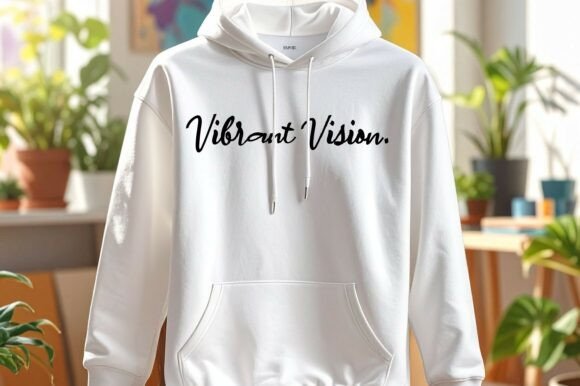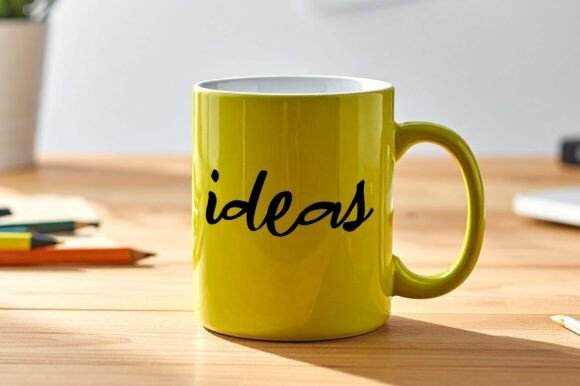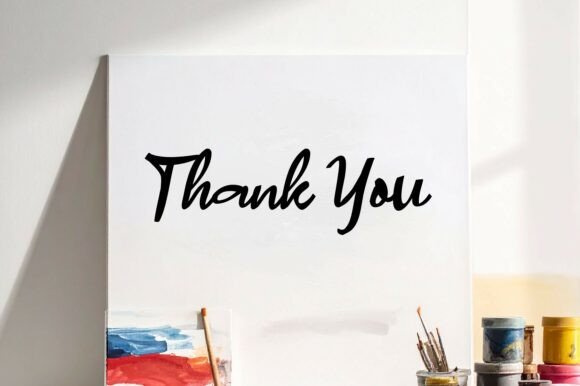
The Birth of a Bold New Voice
As designers, we’ve all had those moments of pure creative bliss – when the ideas flow, and the world feels full of endless possibilities. It’s in those moments that we’re reminded of the power of typography to evoke emotions and bring our vision to life. And that’s exactly what the Artinya Font is all about – capturing the essence of creativity and self-expression in a beautiful, modern script font.
With its bold, free-flowing letterforms and lively brushstroke quality, the Artinya Font is the perfect tool for designers who want to add a touch of confidence and artistic personality to their projects. From branding and apparel to creative studios and personal blogs, this font is an invaluable asset for anyone looking to make a strong, contemporary statement that resonates with their audience.
Key Features of Artinya Font
- Unique Characteristics: Artinya Font features a unique blend of traditional and modern elements, with intricate details and subtle nuances that make it perfect for high-end designs.
- Language Support: The font supports a wide range of languages, including Latin, Cyrillic, Greek, and many others, making it an excellent choice for global branding and marketing campaigns.
- Style Variations: Artinya Font comes in multiple styles, including Regular, Italic, Bold, and Bold Italic, allowing designers to create a wide range of visual effects and moods.
- Scalability: The font is designed to be highly scalable, ensuring that it looks great at any size, from small text to large headlines.
Designer Review: Artinya Font
Artinya Font is an interesting addition to the world of typography. I appreciate its unique aesthetic, which ✨ combines elements of calligraphy and modern sans-serif fonts. The font’s subtle flair and elegant curves give it a sophisticated feel that can elevate a wide range of designs.
The Artinya Font is particularly well-suited for use in high-end branding and luxury products, as well as in creative and artistic projects. Its versatility and range of weights make it easy to adapt to different design styles and applications.
- ⚠️ The font may not be the best choice for fast-paced or technical content, as its decorative elements can be distracting in dense text.
- ⚠️ Some users may find the font’s curves and flourishes too ornate or over-the-top, which can be a turn-off in more conservative design contexts.
Overall, Artinya Font is a solid choice for designers looking to add some sophistication and elegance to their projects. While it may not be the best fit for every design task, its unique charm and versatility make it a valuable addition to any font collection.
Artinya Font is suitable for various design projects, including:
2. Business cards and letterheads.
3. Posters and flyers.
4. Branding and marketing materials.
5. Digital products, such as ebooks and templates.